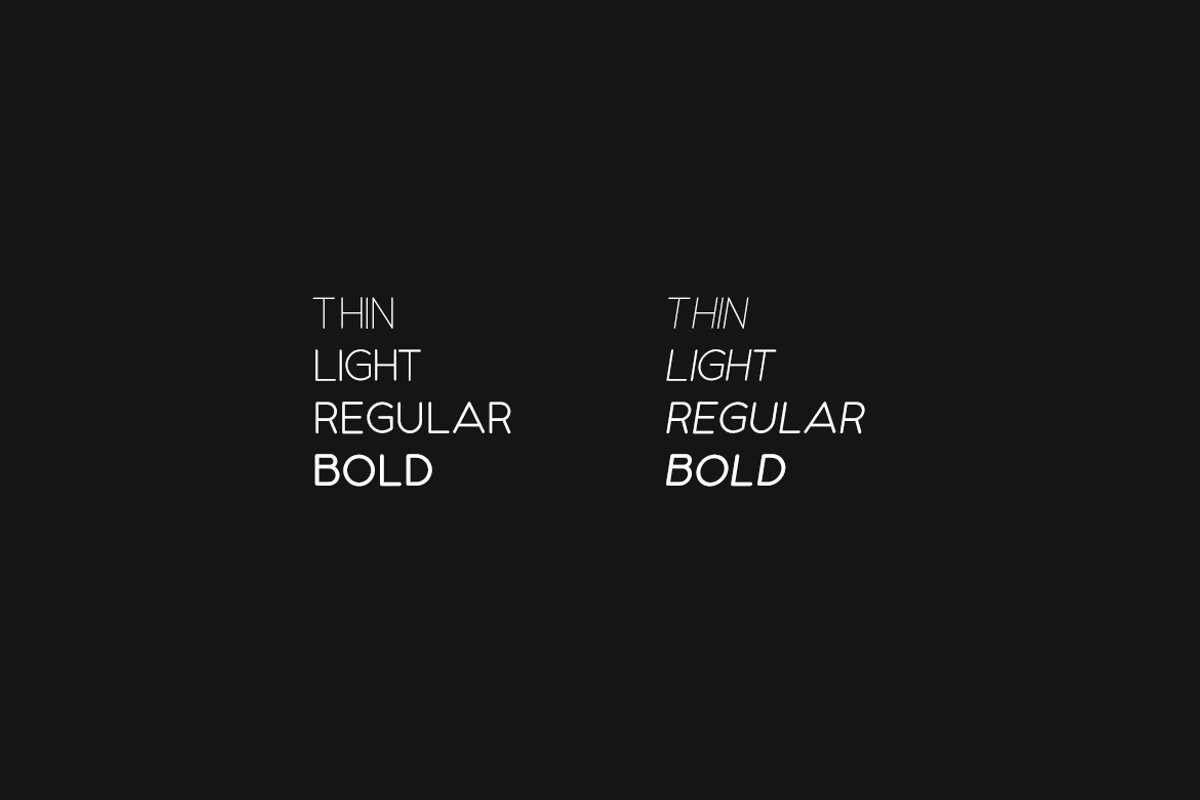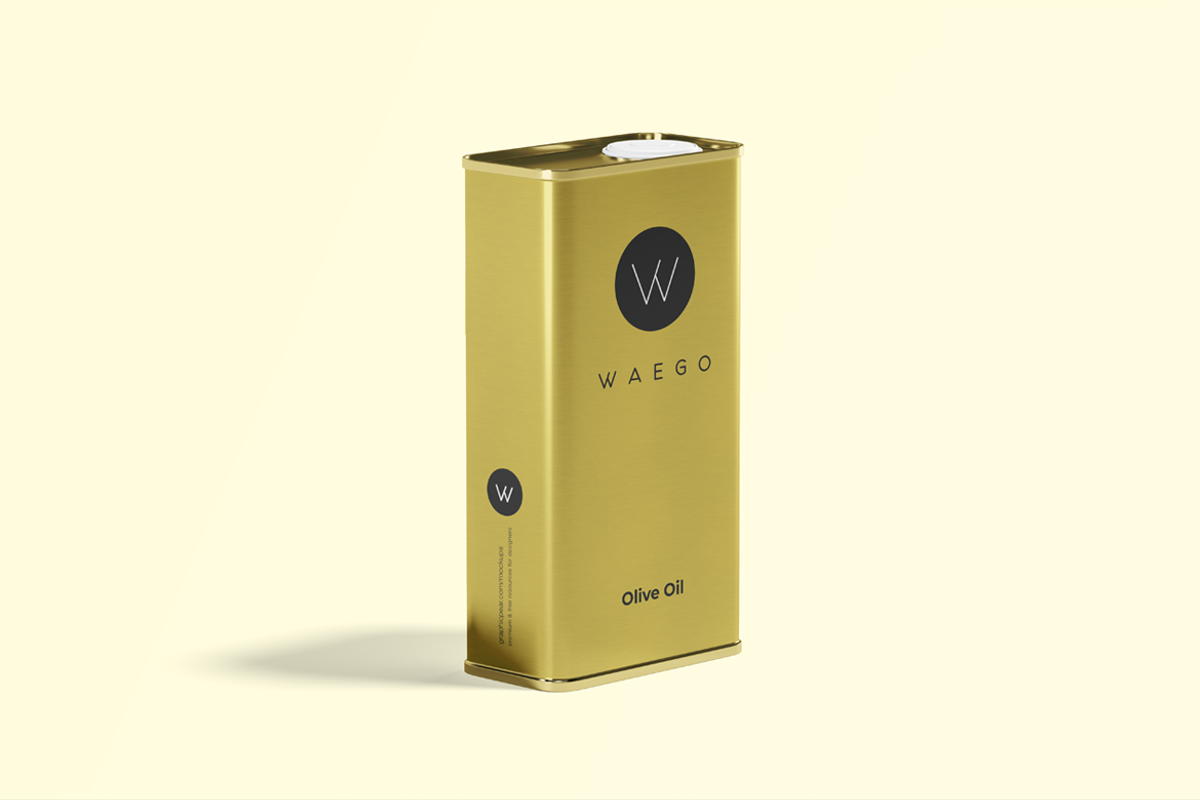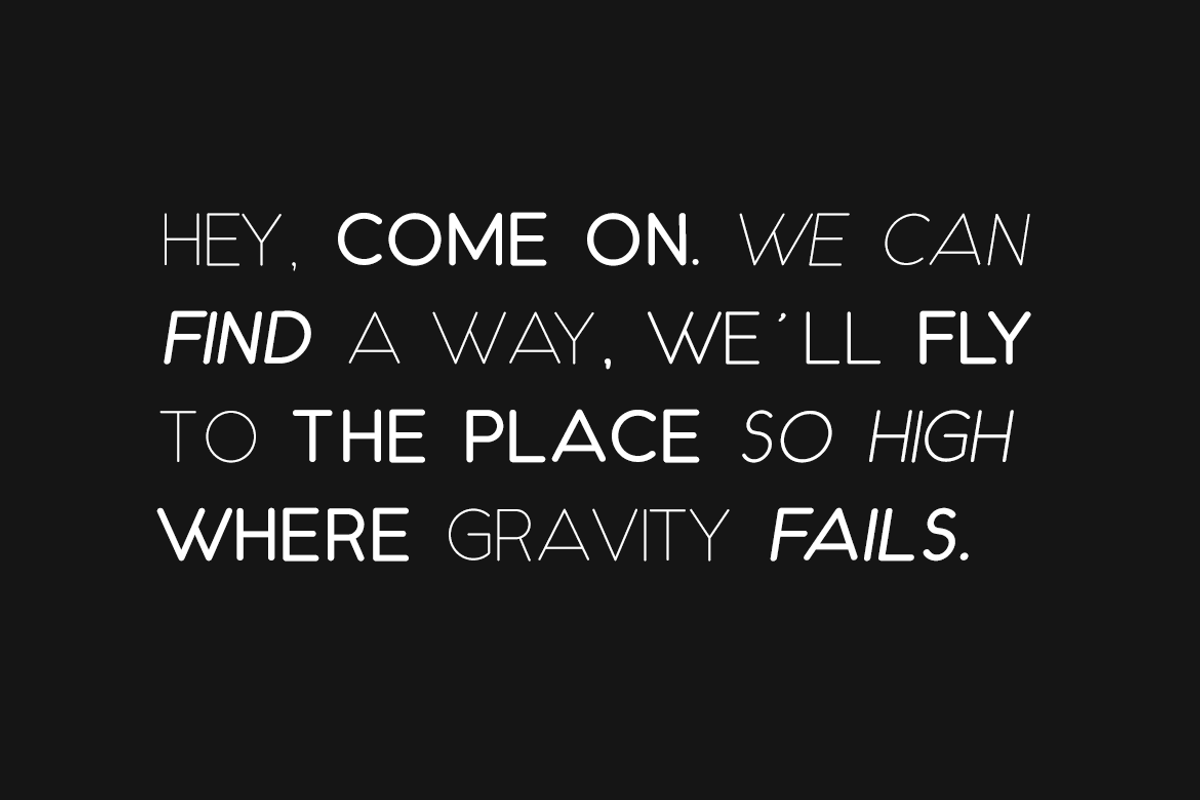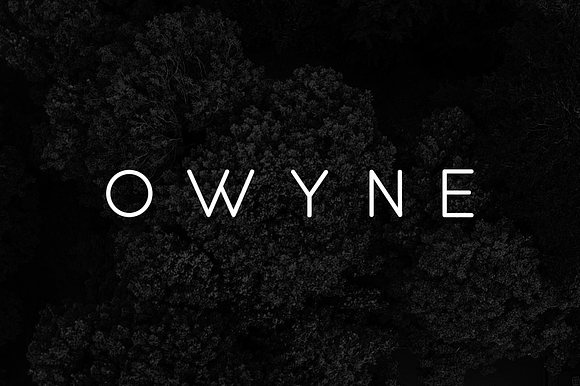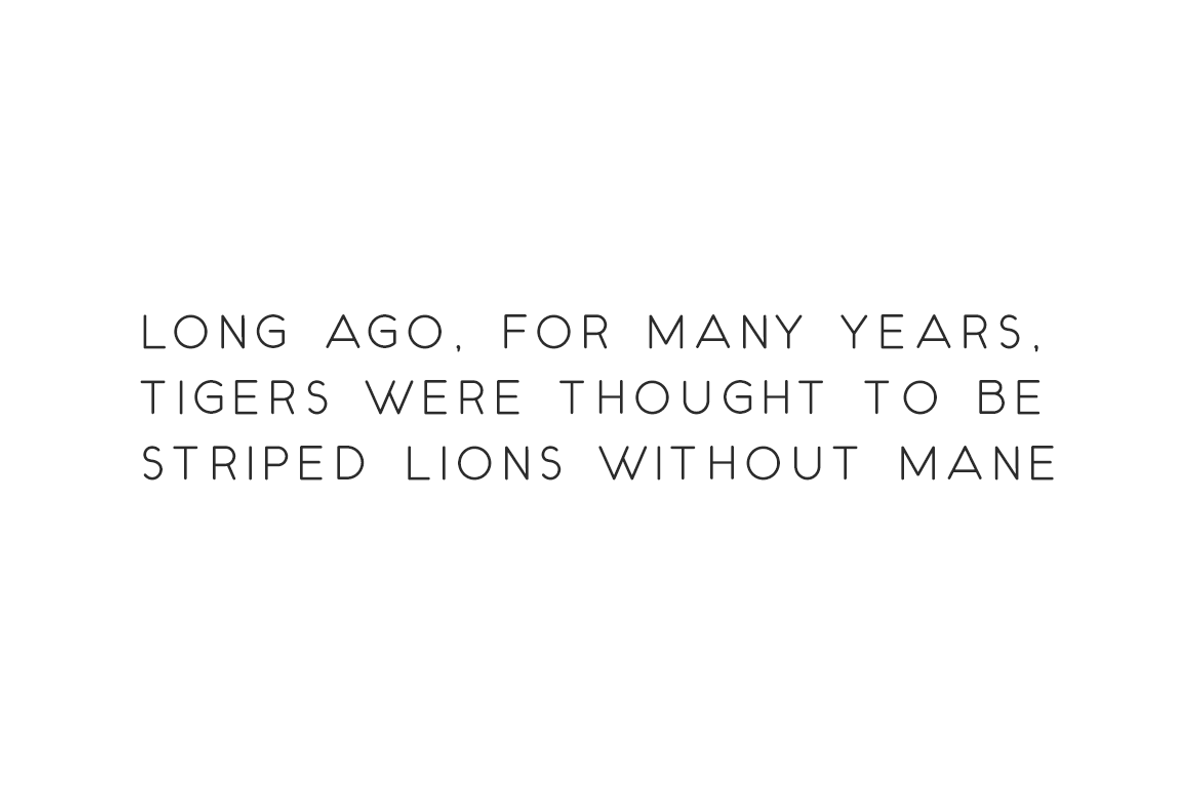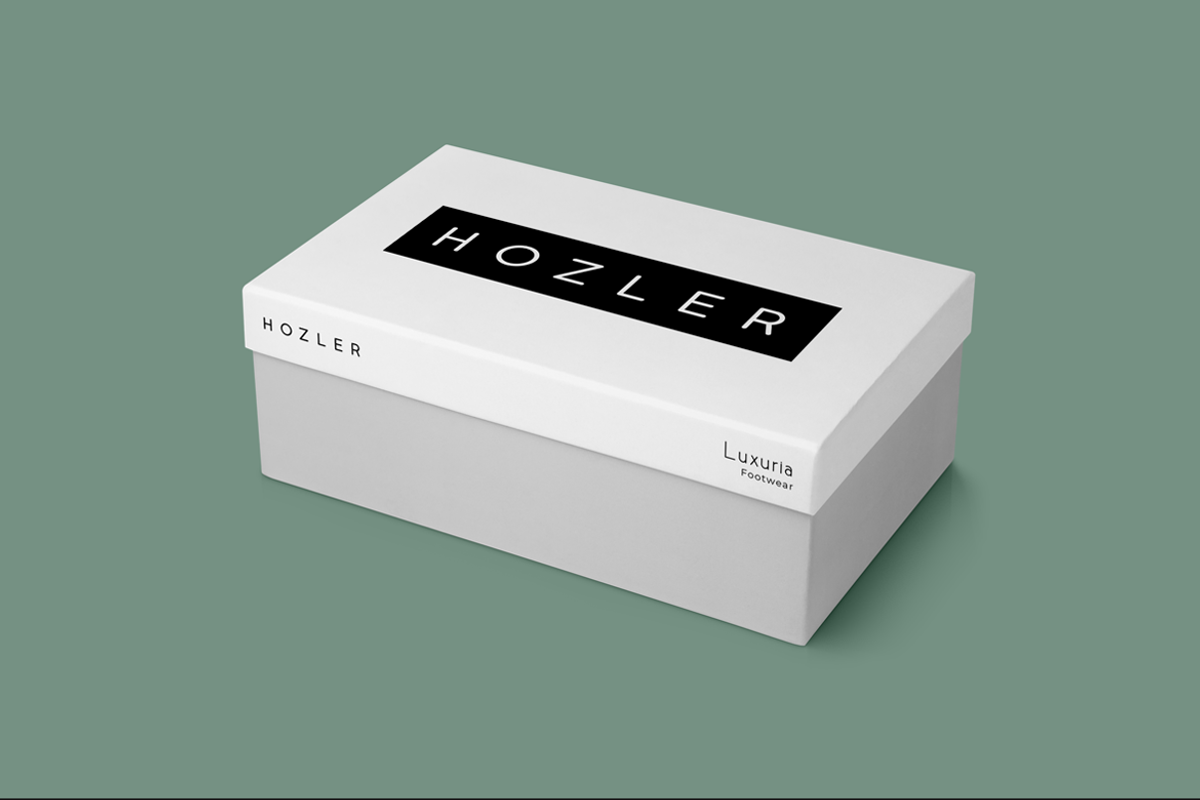
OWYNE - Modern & Stylish Typeface
A modern typeface specifically made for luxury, fashion and stylish statement with a special charm that makes it perfect for beautiful headlines, branding, logotypes & display usage. This font is also perfect for creating outstanding logos, promotional content and marketing graphics that can really grab attention from your visitors. Please see the examples shown above to get an idea about the capability of this typeface.
OWYNE comes with 4 weights (Thin, Light, Regular & Bold) along with italic versions of all weights. The pack contains OTF, TTF and Web Fonts (all EOT, SVG, TTF, WOFF, WOFF2 everything is included) as licensing options.